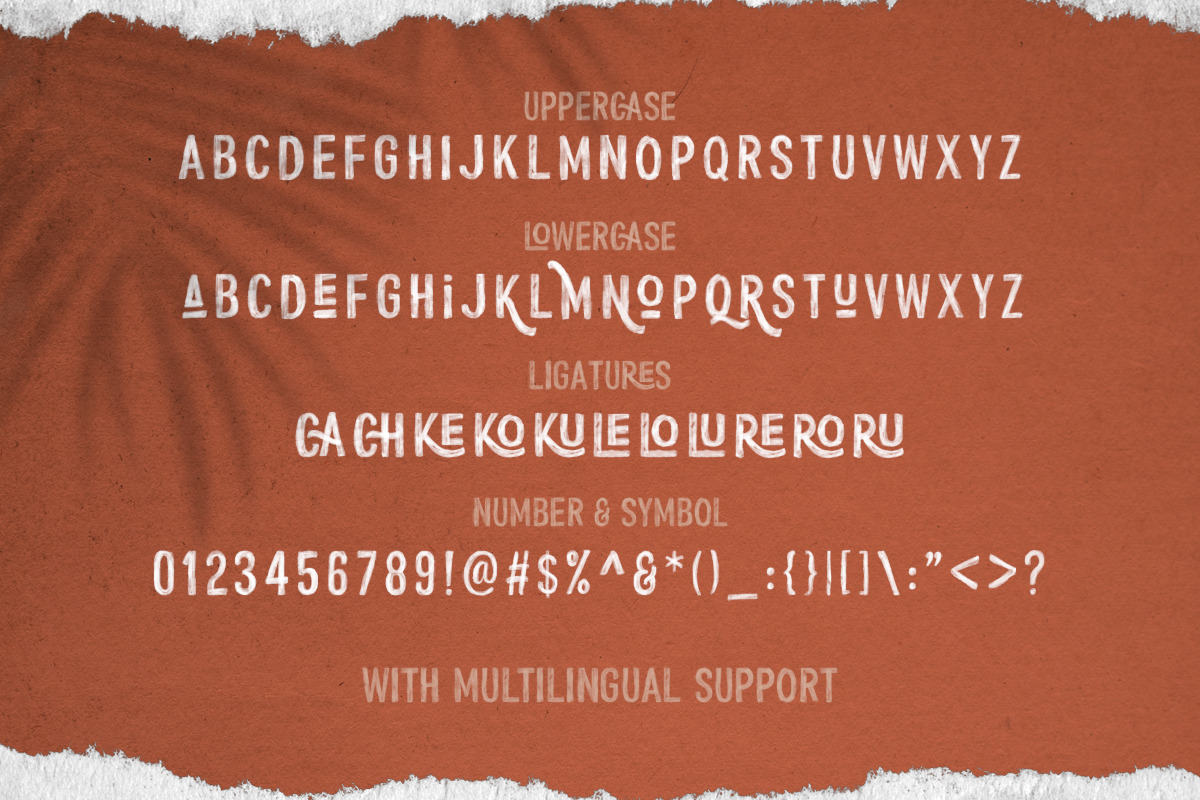
Introducing, Cherions, SVG Sans with Ligatures!
Cherions SVG Sans is handmade font that contains the newest font format, SVG, with vector format. You can use these fonts for various purposes such as making realistic hand lettering, for promotions, or other purposes that will make your design more real as handmade. This font also contain fabulous ligatures that will make your design stand out! This font also support multi language.